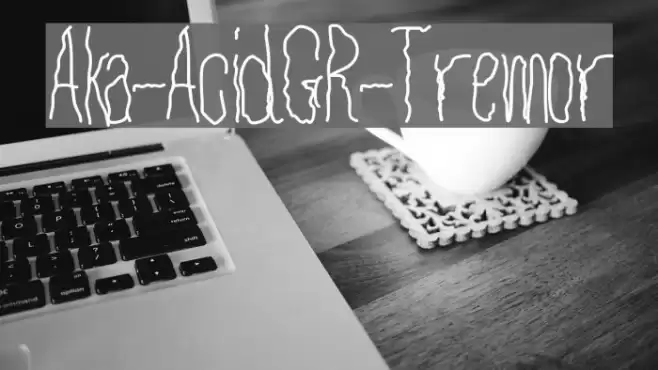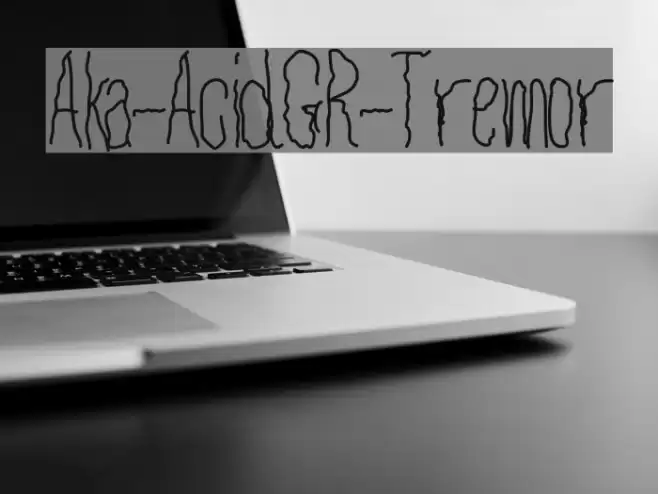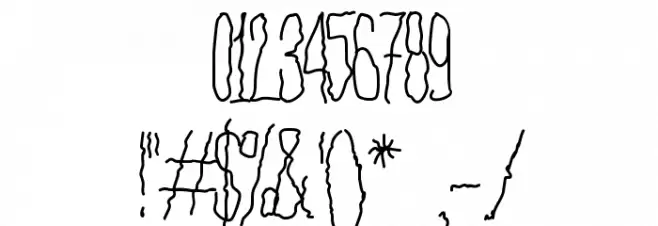
Aka-AcidGR-Tremor Font
Aka-AcidGR-Tremor Description
This font features a unique, wavy design that gives the impression of trembling or vibrating lines. The characters are elongated and irregular, creating a sense of movement and energy. The uppercase and lowercase letters maintain a consistent style, with thin strokes and uneven edges. Numbers and special characters follow the same aesthetic, contributing to a cohesive and distinctive look. This font's unconventional style makes it stand out, ideal for creative and artistic projects that require a touch of whimsy or unpredictability.
A wavy, trembling font with thin, irregular strokes for a dynamic look from Uncategorized fonts.
- Proposed Projects: Ideal for album covers, posters, artistic projects, or any design needing a dynamic and unconventional typeface.
- Use Case: Headlines, Artistic projects, Posters